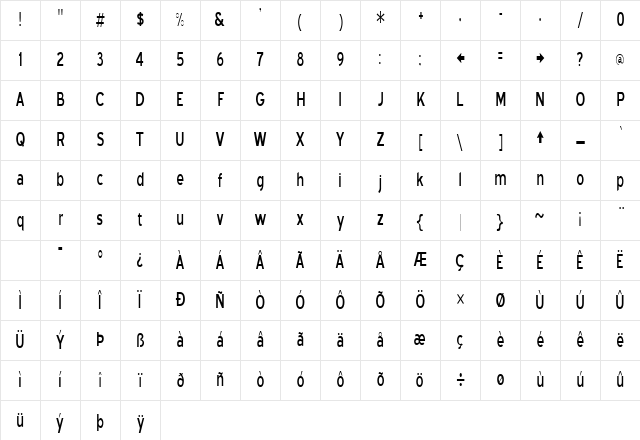
Blue Highway Condensed Regular
Design Context for Blue Highway Condensed
Blue Highway Condensed is a composed and adaptable typeface that performs quietly and consistently across a wide range of design contexts. Its narrow stance lets it pack a punch even in space-constrained designs.